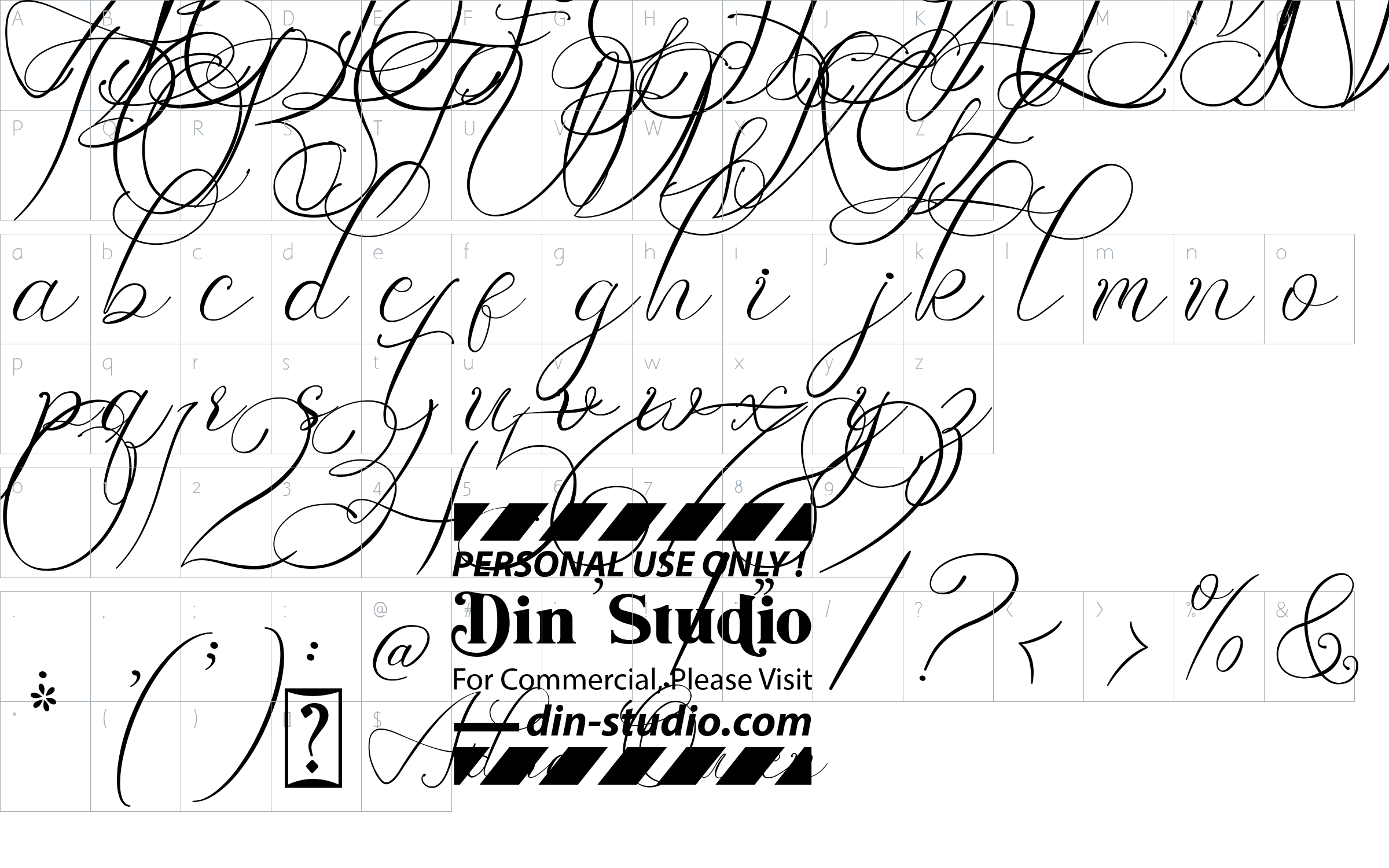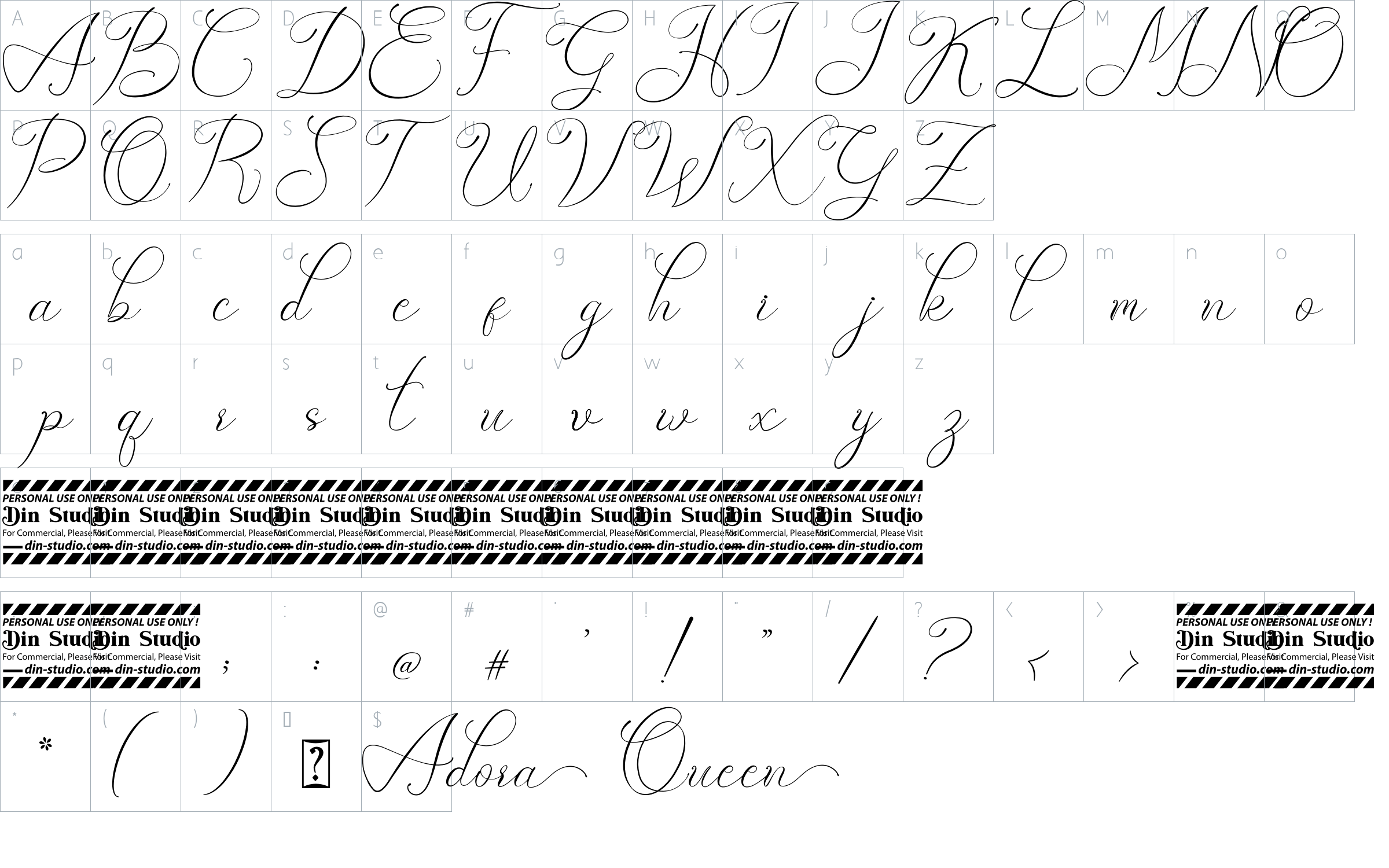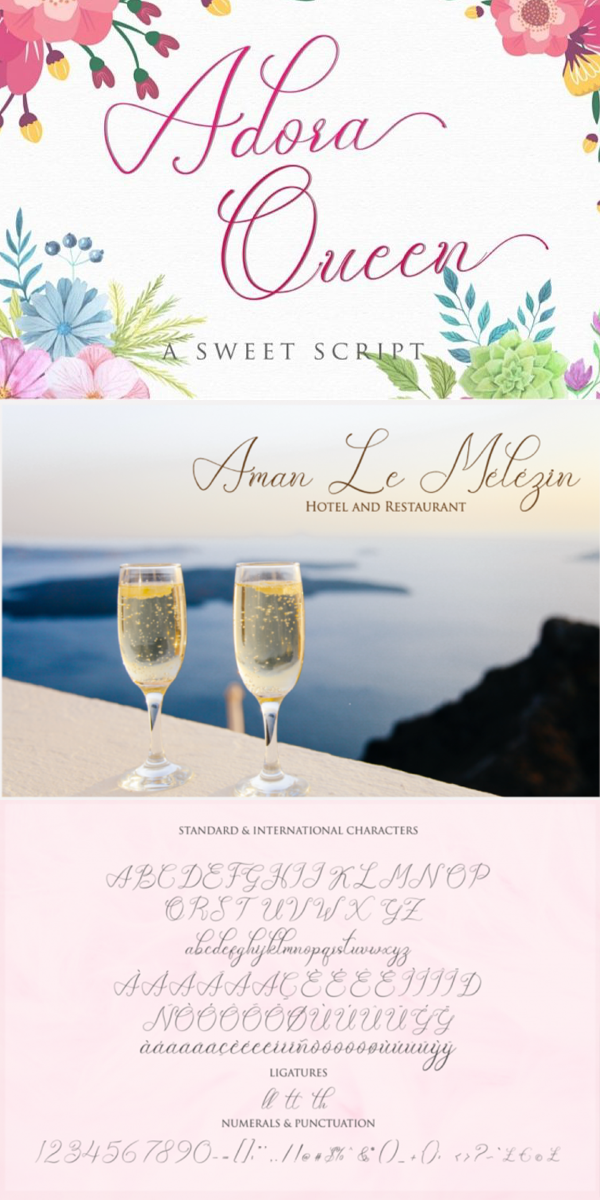
Adora Queen Font
About Adora Queen
Adora Queen an elegant modern calligraphy font. This font presents an elegant style that best for a wedding, any card design, branding projects, product packaging, quotes, logos, book covers, and many other projects. See the previews above to get some inspiration on how you can use them. Enjoy the font!
- Beginning and Ending Swashes (included in Adora Queen Regular and it is showed in font preview)
- Adora Queen Ligatures (included in Adora Queen Regular and it is showed in font preview)
- Stylistic Alternates